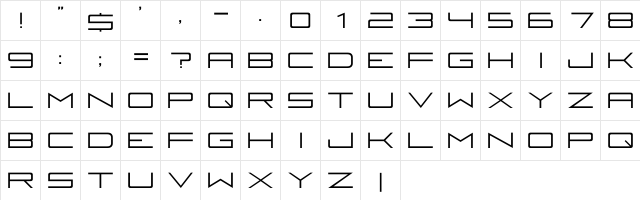
Fireye GF Regular
Design Context for Fireye GF Typeface
Fireye GF takes a measured approach to typography — its balanced proportions and neutral character make it a reliable workhorse for both digital and print work.
Pro Tip: Pair Fireye GF with a font of contrasting weight or personality to build a more expressive typographic hierarchy.